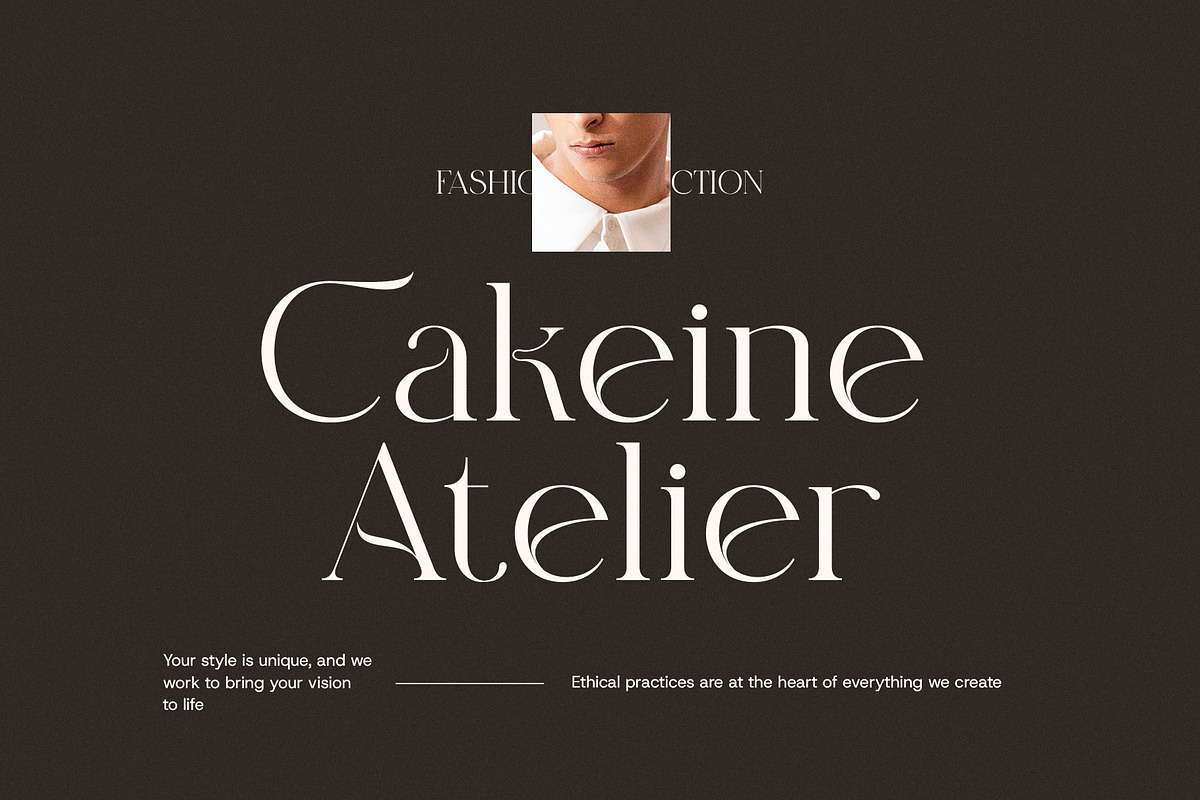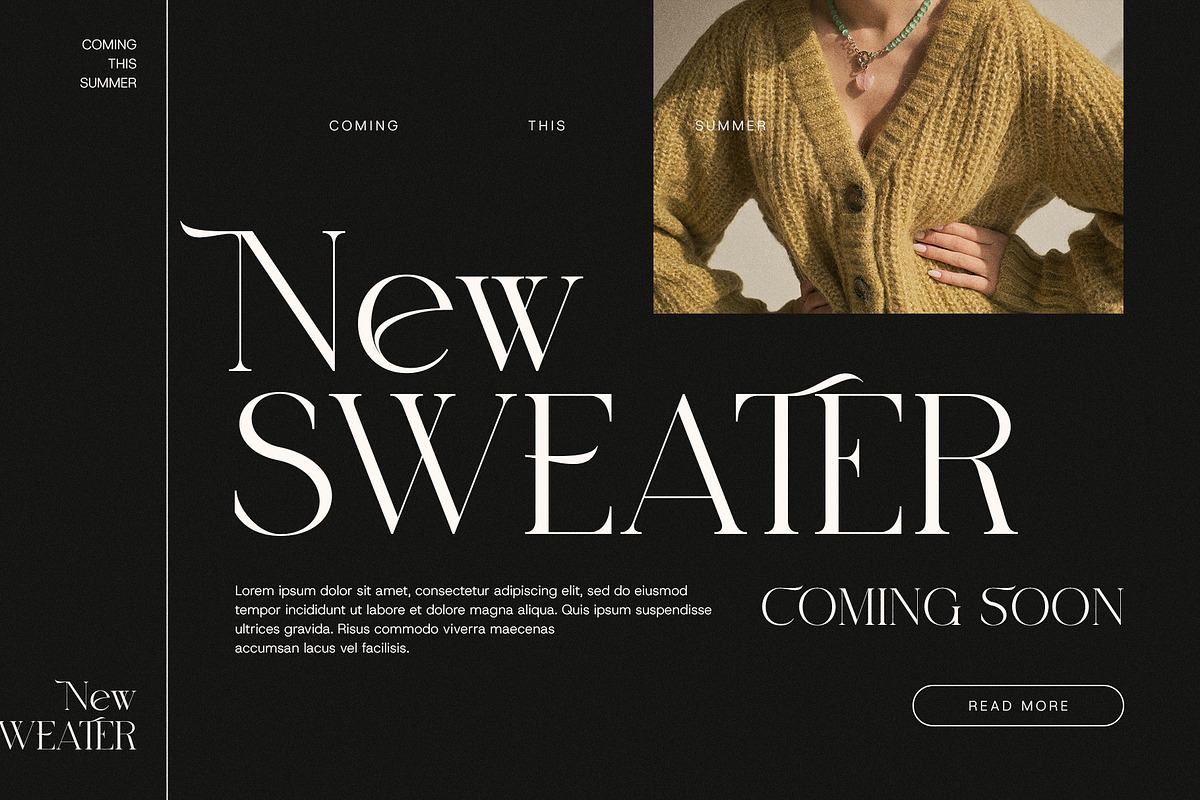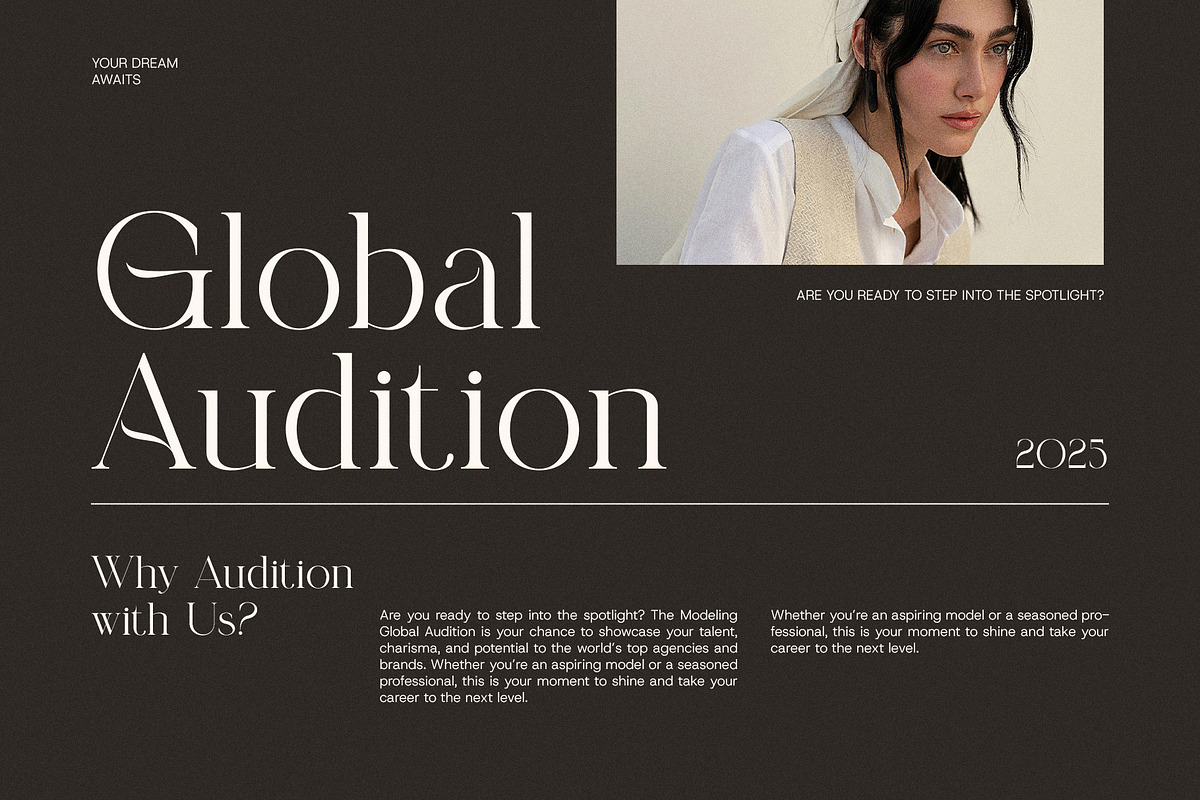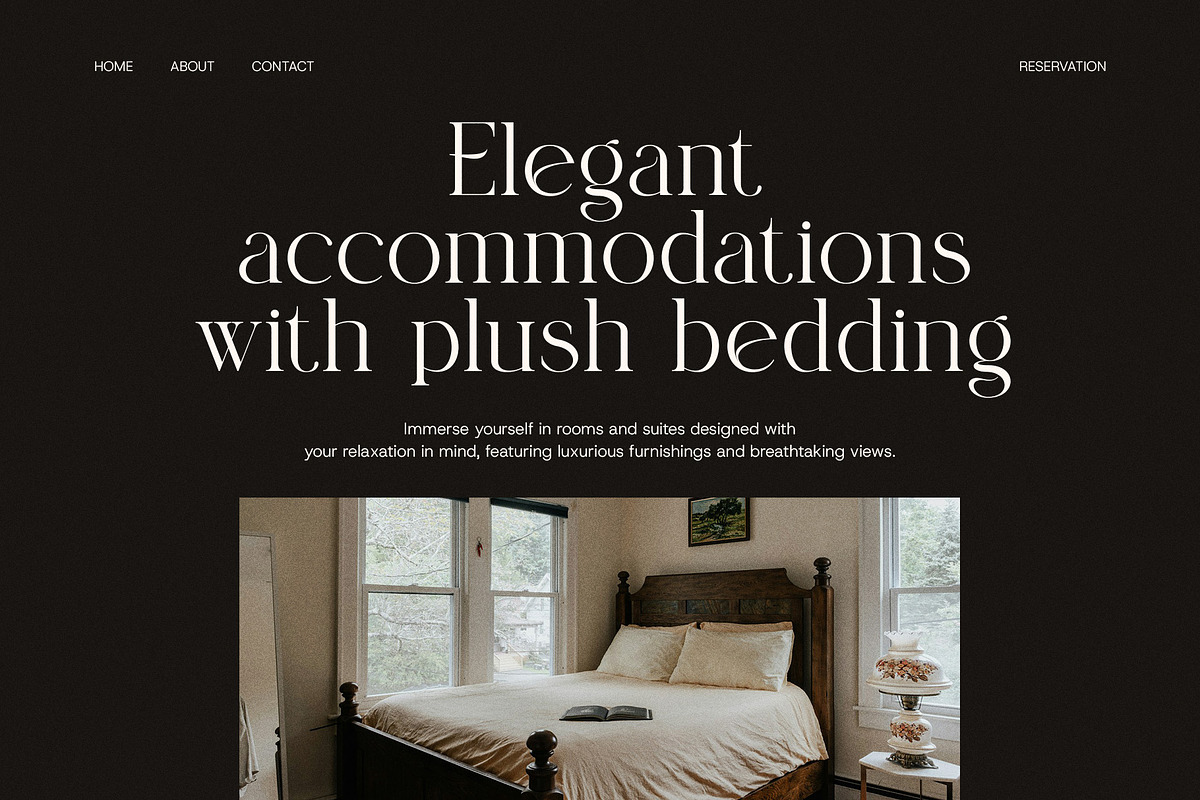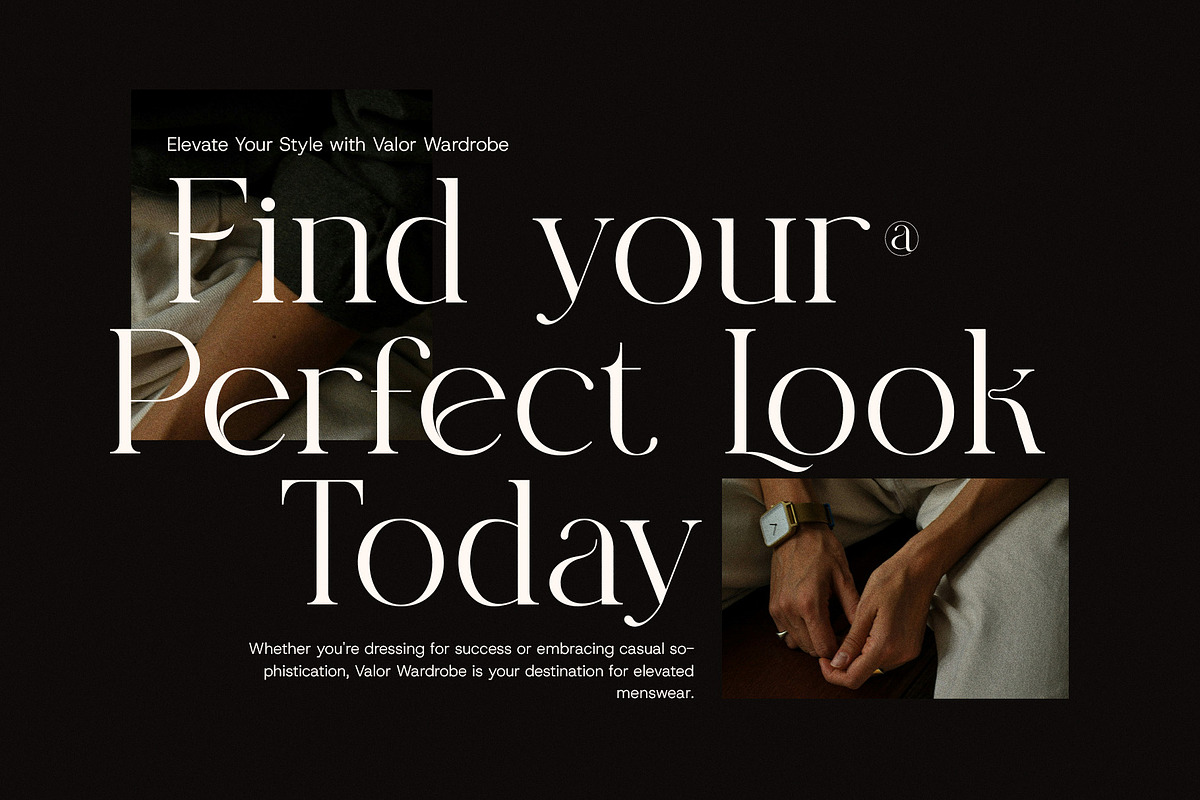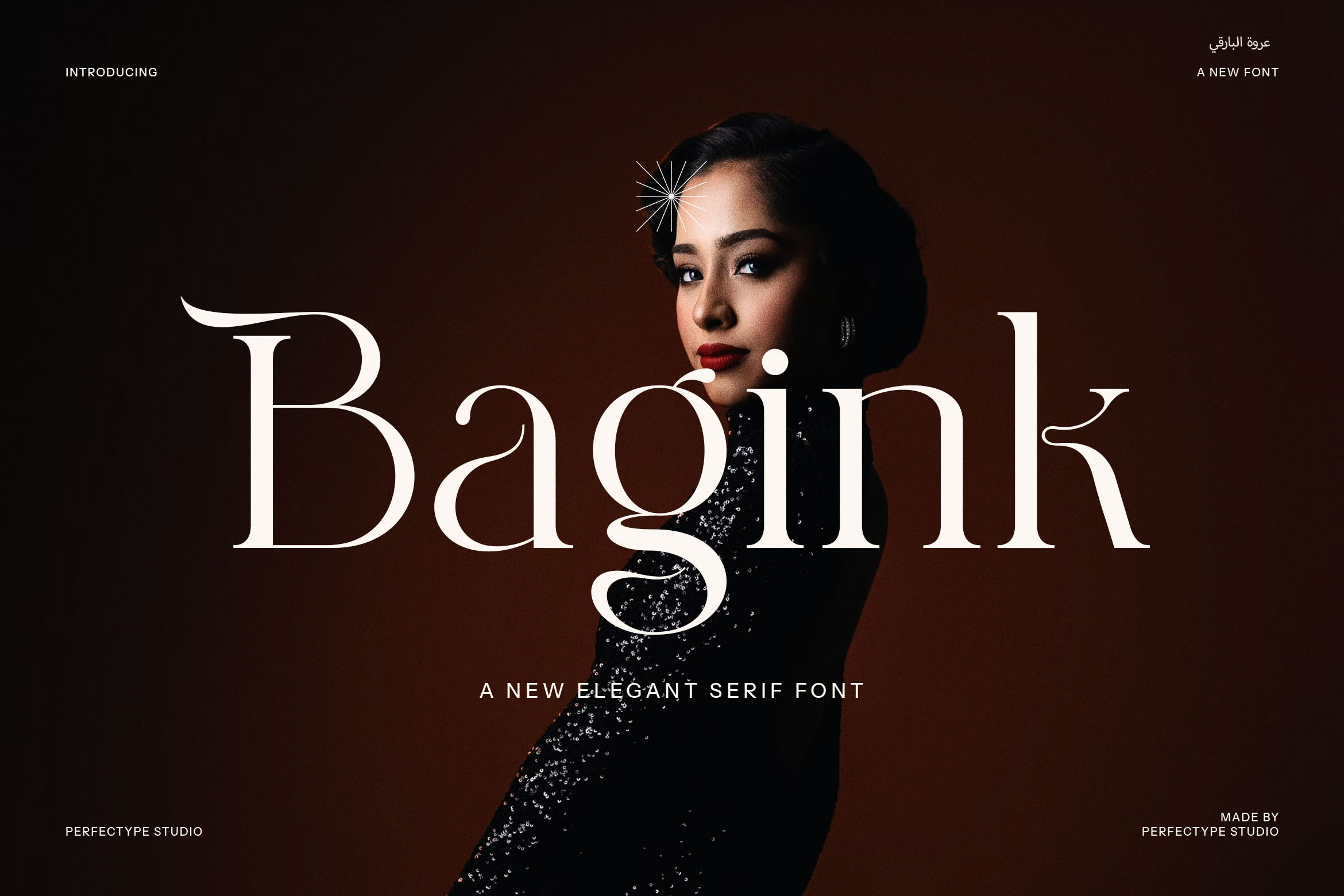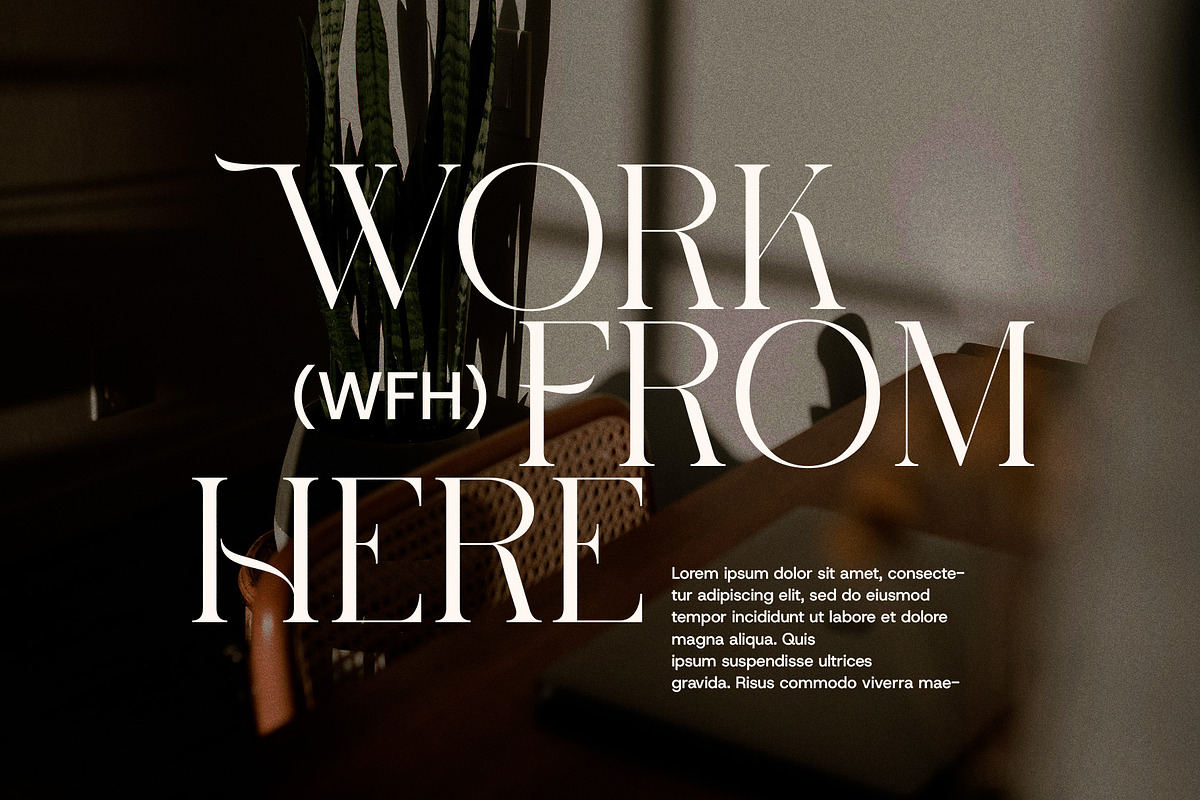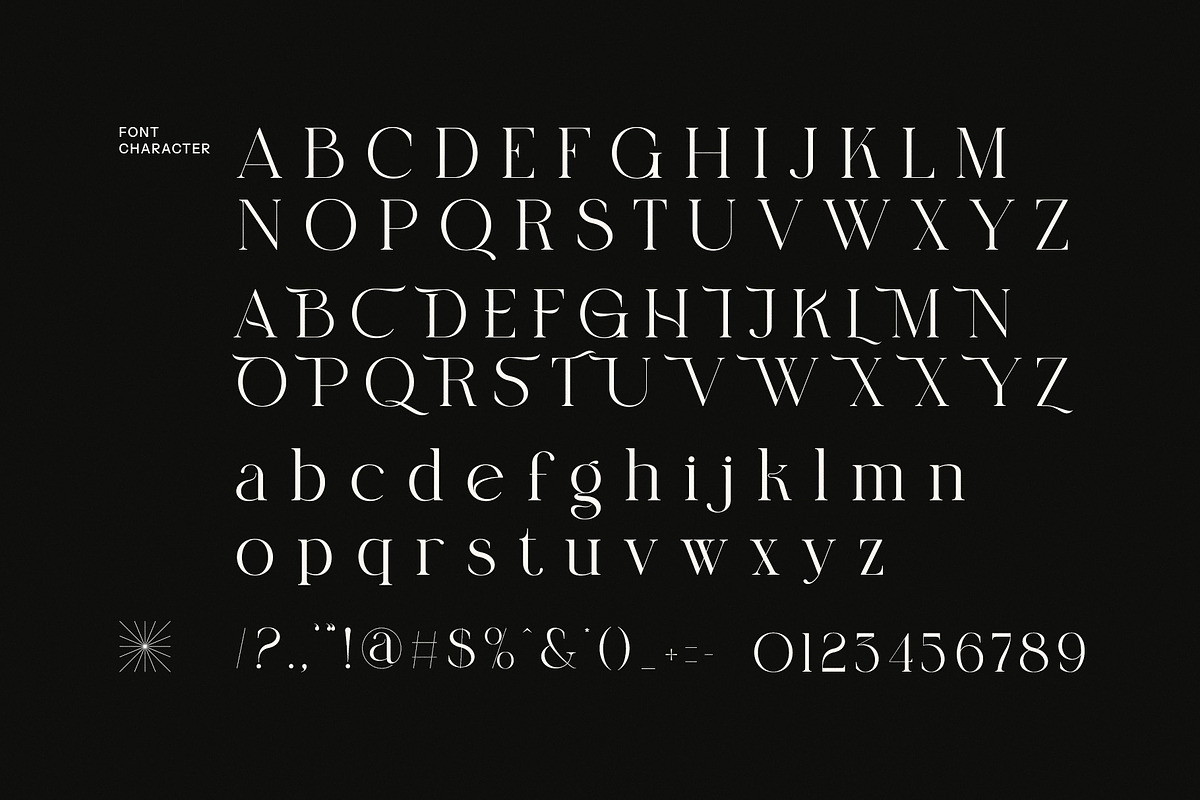
Bagink Elegant Serif Font
Bagink Elegant Serif Font is a sophisticated and contemporary serif typeface designed to bring a touch of refinement and style to any project. With its unique blend of classic serif elements and modern details, Bagink offers a distinctive personality that is both timeless and fresh. The font’s graceful curves and clean lines make it ideal for creating high-end, professional designs that demand attention.
Perfectly suited for logos, branding, and identity design, Bagink Elegant Serif is a versatile choice for businesses looking to make a lasting impression. Its refined aesthetic also works beautifully in print and digital formats, whether you’re designing websites, magazines, product packaging, or advertisements. The font’s clarity and elegance make it an excellent option for upscale boutiques, food branding, and luxury goods.
Bagink’s carefully crafted letterforms strike the perfect balance between elegance and readability, ensuring that it stands out without overwhelming the viewer. Whether used for bold headlines or sophisticated body text, this font exudes class and professionalism. Its stylish design will elevate your creative projects and add a sense of prestige to your visual communications.
Ideal for any project where elegance and modernity are key, Bagink Elegant Serif Font will help you create designs that feel both fresh and timeless. Bring sophistication to your logos, advertisements, websites, and more with this truly remarkable font.